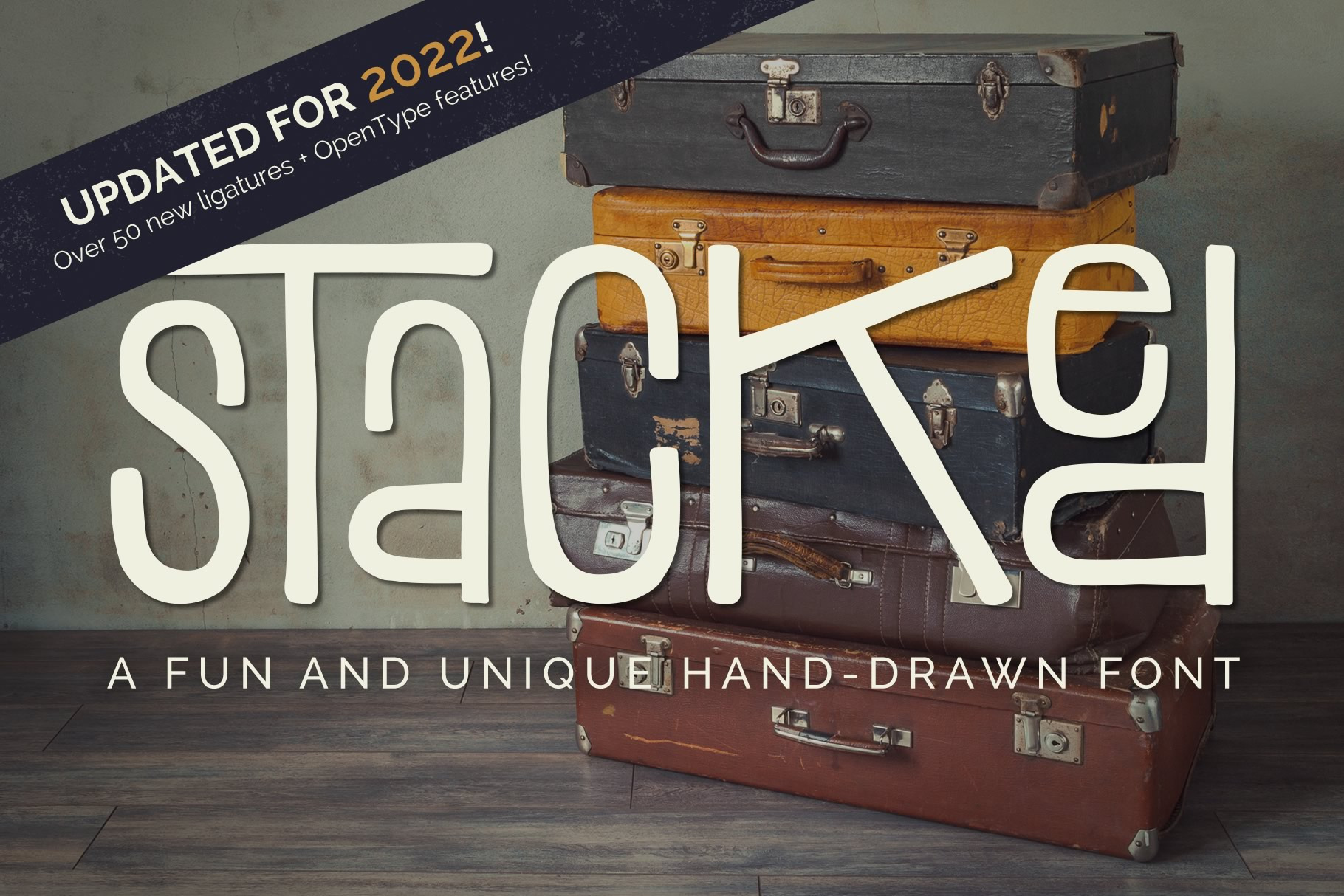
Stacked Font
2022 UPDATE: After 10 years, I decided to revisit my very first font. Cleaned it up a bit, made a few changes, added opentype features, and over 50 new ligatures! Original files are still included, in case you like that retro charm.
Stacked is a fun and unique font that comes with individual characters as well as 2-3 letters stacked together. You can mix and match until you find just the look you want. Works great for big, bold headers or typographic posters.
I purchased this font back in 2013 and it remains my most used font to this day. There's something about it that screams unique to me. I'm no professional designer, I just design things for my kids or birthday cards and stuff like that, but after 12 years my only complaint is that I didn't find out about the updated version until 3 years later (entirely my fault since email is the new trash can). Highly recommended.